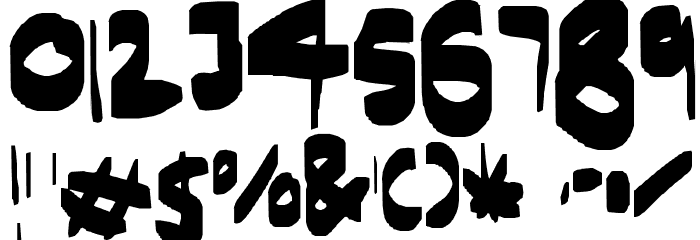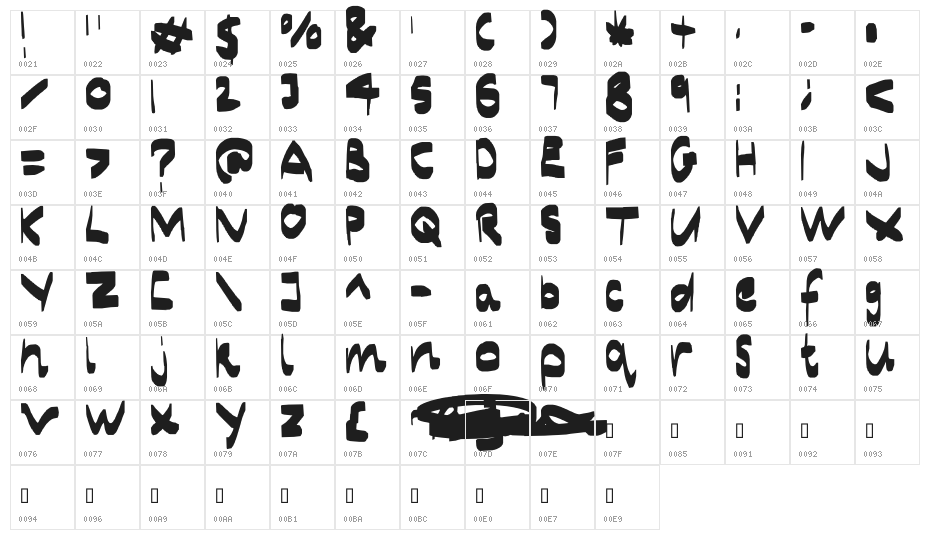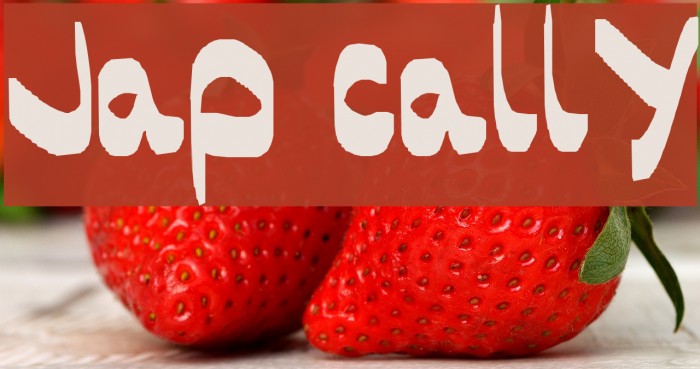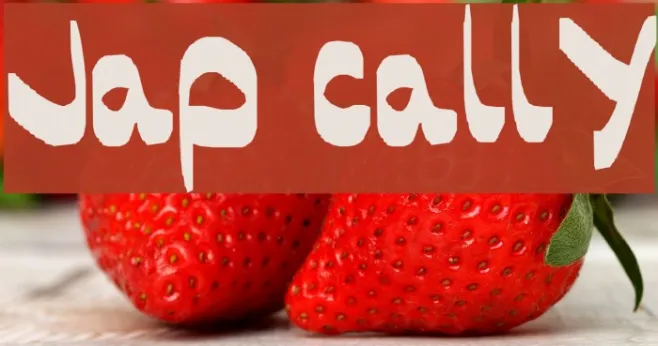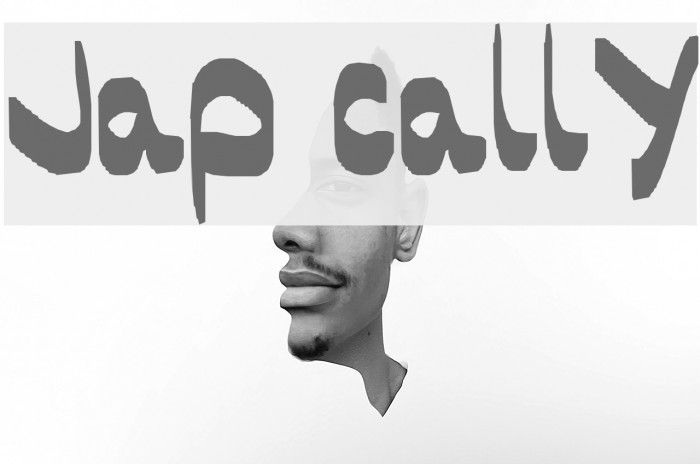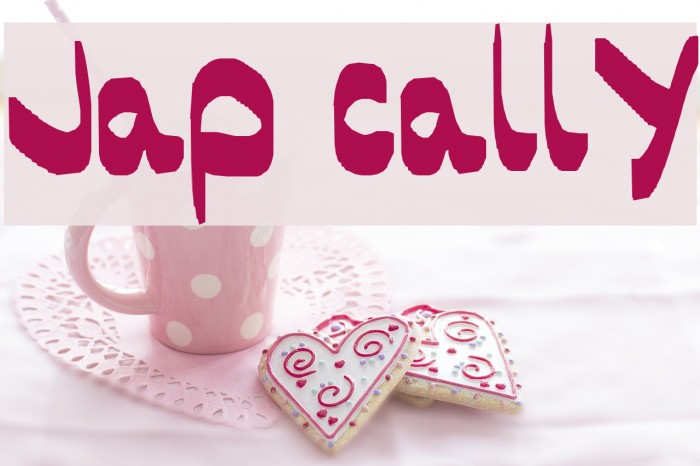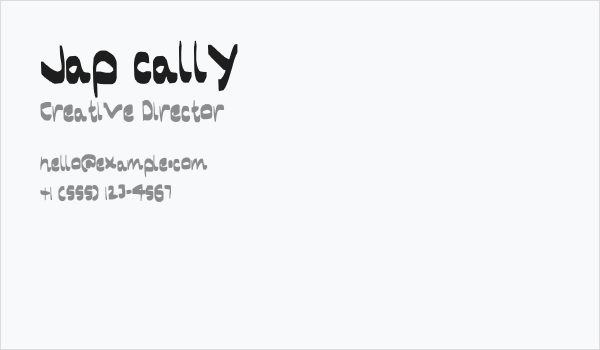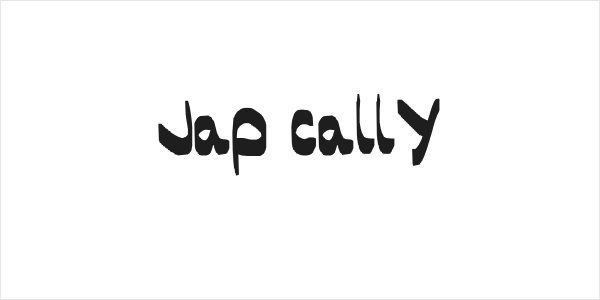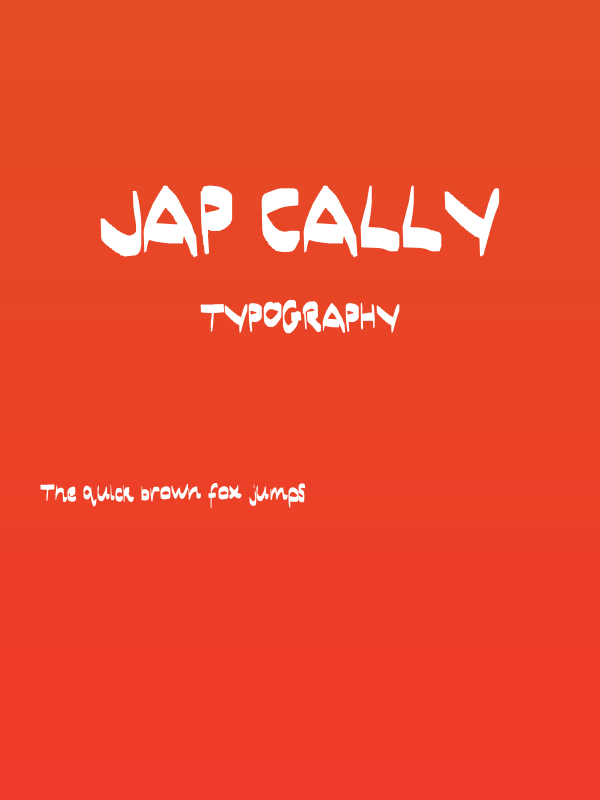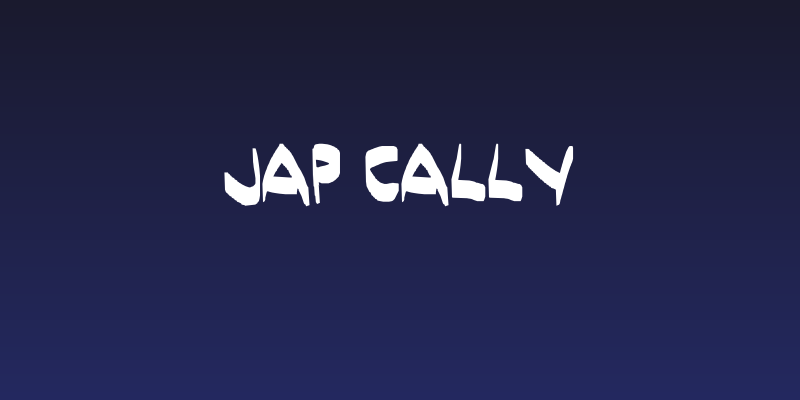
Jap cally Font
Jap cally Description
This font features a bold and expressive style with a hand-drawn appearance. The characters are thick and uneven, giving a dynamic and artistic feel. The uppercase letters are tall and slightly narrow, while the lowercase letters maintain a consistent height with a playful touch. Numbers and special characters follow the same bold and irregular pattern, adding to the overall quirky and creative aesthetic. The font's unique style makes it stand out, perfect for projects that require a distinctive and artistic look.
| Overall Style | Artistic |
| Use Case | Logos, Posters, Artistic Branding |
| Proposed Projects | Ideal for creative projects such as posters, album covers, artistic branding, and unique invitations. |